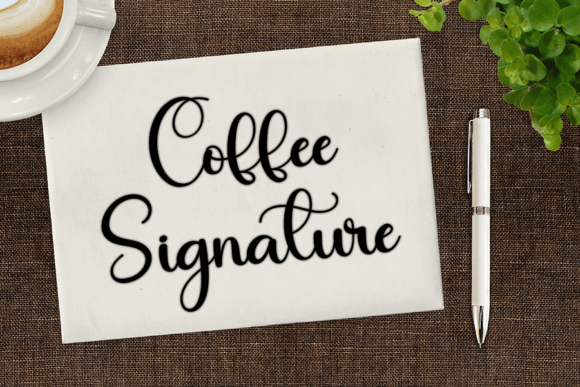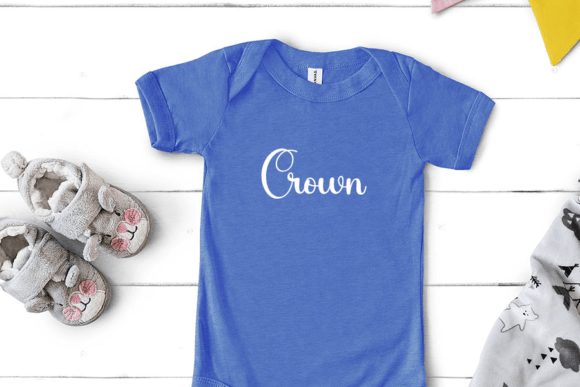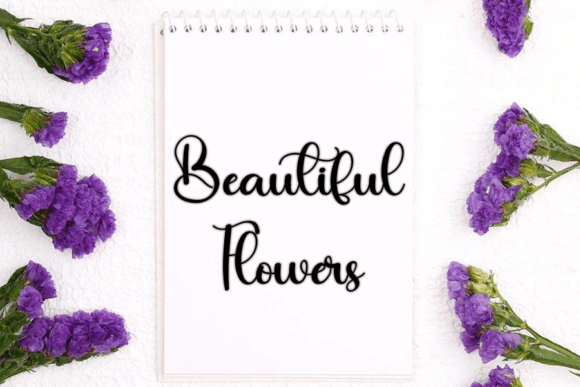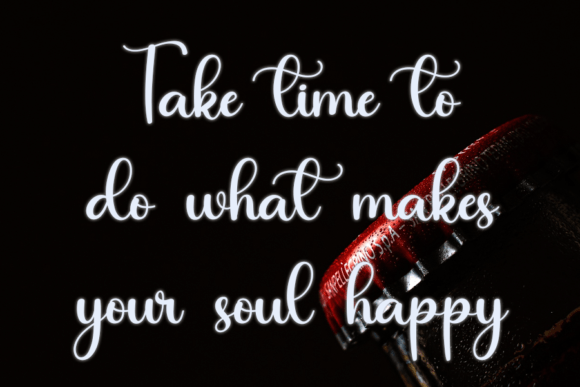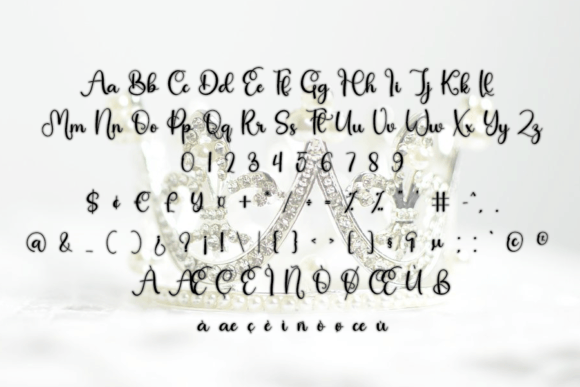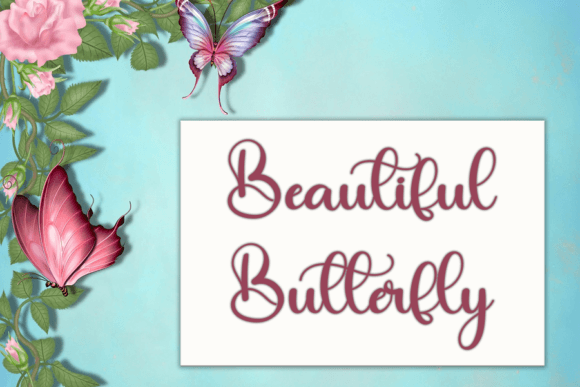
Crown Font: Elevate Your Designs with Elegance and Timeless Style
Are you on the hunt for a font that exudes elegance, sophistication, and a touch of timeless charm? Look no further than the Crown Font, a stunning flowing handwritten font that is sure to capture your heart. With its incredibly distinct and classic style, Crown Font is the perfect addition to your favorite projects, allowing you to create spectacular designs that stand out from the crowd.
The Essence of Crown Font
Crown Font is described by its elegant touch, which is evident in every curve and line of this beautiful font. Its flowing handwritten style gives it a unique and organic feel, making it perfect for a wide range of design applications. Whether you’re working on a logo, branding materials, invitations, or any other project that requires a touch of sophistication, Crown Font is sure to impress.
What Makes Crown Font Stand Out
So, what sets Crown Font apart from other fonts? Here are a few key features that make it a standout choice for designers and crafters:
- Elegant and Refined: Crown Font boasts an undeniable air of elegance, making it perfect for designs that require a touch of sophistication.
- Flowing Handwritten Style: The font’s flowing handwritten style gives it a unique and organic feel that sets it apart from more traditional fonts.
- Timeless Appeal: Crown Font’s classic style ensures that it will remain a timeless choice for years to come, even as design trends evolve.
- Versatile: Whether you’re working on a logo, invitation, or branding materials, Crown Font is versatile enough to adapt to any design need.
Using Crown Font in Your Designs
One of the best things about Crown Font is its ease of use. Whether you’re a seasoned designer or a crafting enthusiast, you can easily incorporate Crown Font into your projects. Here are a few ideas to get you started:
- Logos and Branding: Use Crown Font to create a logo or branding materials that exude elegance and sophistication.
- Invitations and Stationery: Add a touch of class to your invitations, greeting cards, and other stationery with Crown Font.
- Packaging and Product Design: Use Crown Font to create eye-catching packaging and product designs that stand out on store shelves.
- Digital Designs: Incorporate Crown Font into your digital designs, such as social media graphics, blog headers, and more.
Tips for Getting the Most Out of Crown Font
To truly make the most of Crown Font, here are a few tips to keep in mind:
- Experiment with Sizes and Colors: Don’t be afraid to experiment with different sizes and colors to find the perfect combination for your design.
- Pair with Complementary Fonts: Pair Crown Font with complementary fonts to create visual interest and add depth to your design.
- Use it Sparingly: While Crown Font is beautiful, it can be overwhelming if overused. Use it sparingly to create a focal point in your design.
In conclusion, Crown Font is a beautiful and elegant flowing handwritten font that is sure to elevate your designs to the next level. With its timeless style, versatility, and ease of use, it’s the perfect choice for designers and crafters looking to add a touch of sophistication to their projects. So why wait? Fall in love with Crown Font and start creating spectacular designs today!